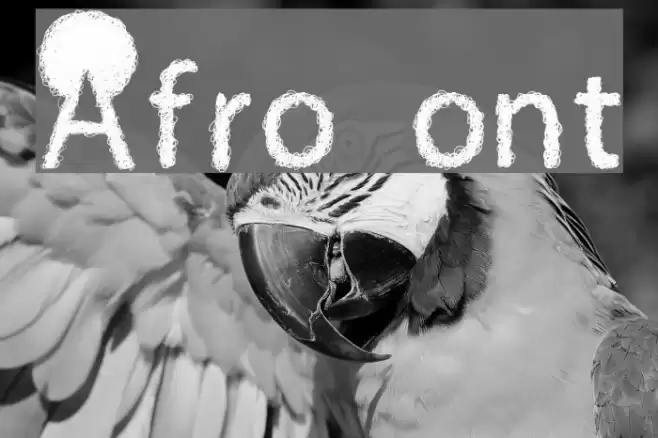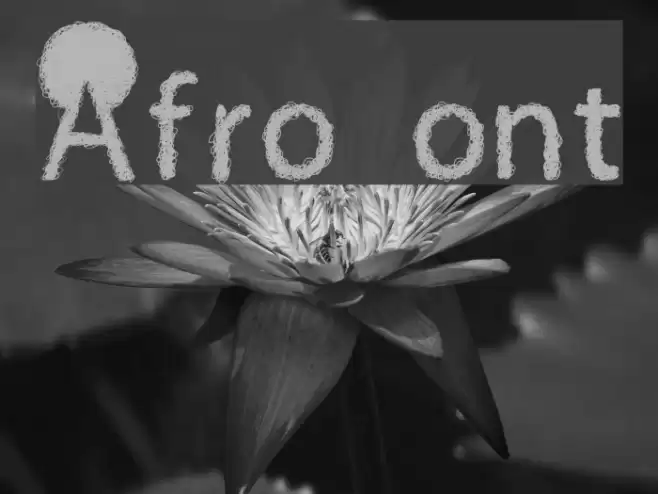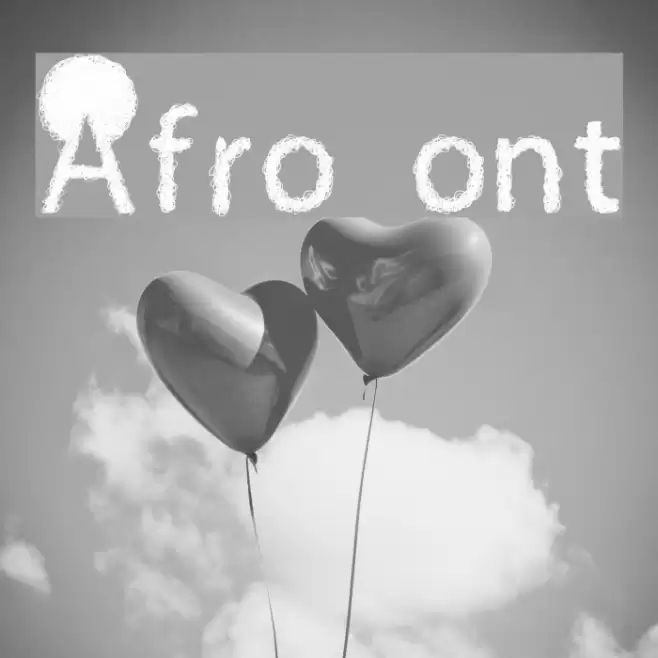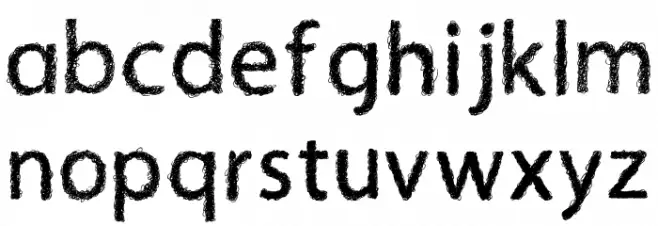
Afro Font
Afro Description
This font features a playful and textured style, reminiscent of hand-drawn chalk or crayon. Each letter is crafted with a rough, uneven edge, giving it a casual and artistic feel. The lowercase letters are rounded and friendly, with a consistent height that maintains readability. The texture adds a unique character, making it stand out in creative projects. The font's informal nature makes it suitable for designs that aim to convey a sense of fun and creativity. Its distinctive appearance is ideal for projects that require a personal touch, such as children's books, playful branding, or artistic posters.
| Proposed Projects | Ideal for children's books, playful branding, artistic posters, and creative invitations. |